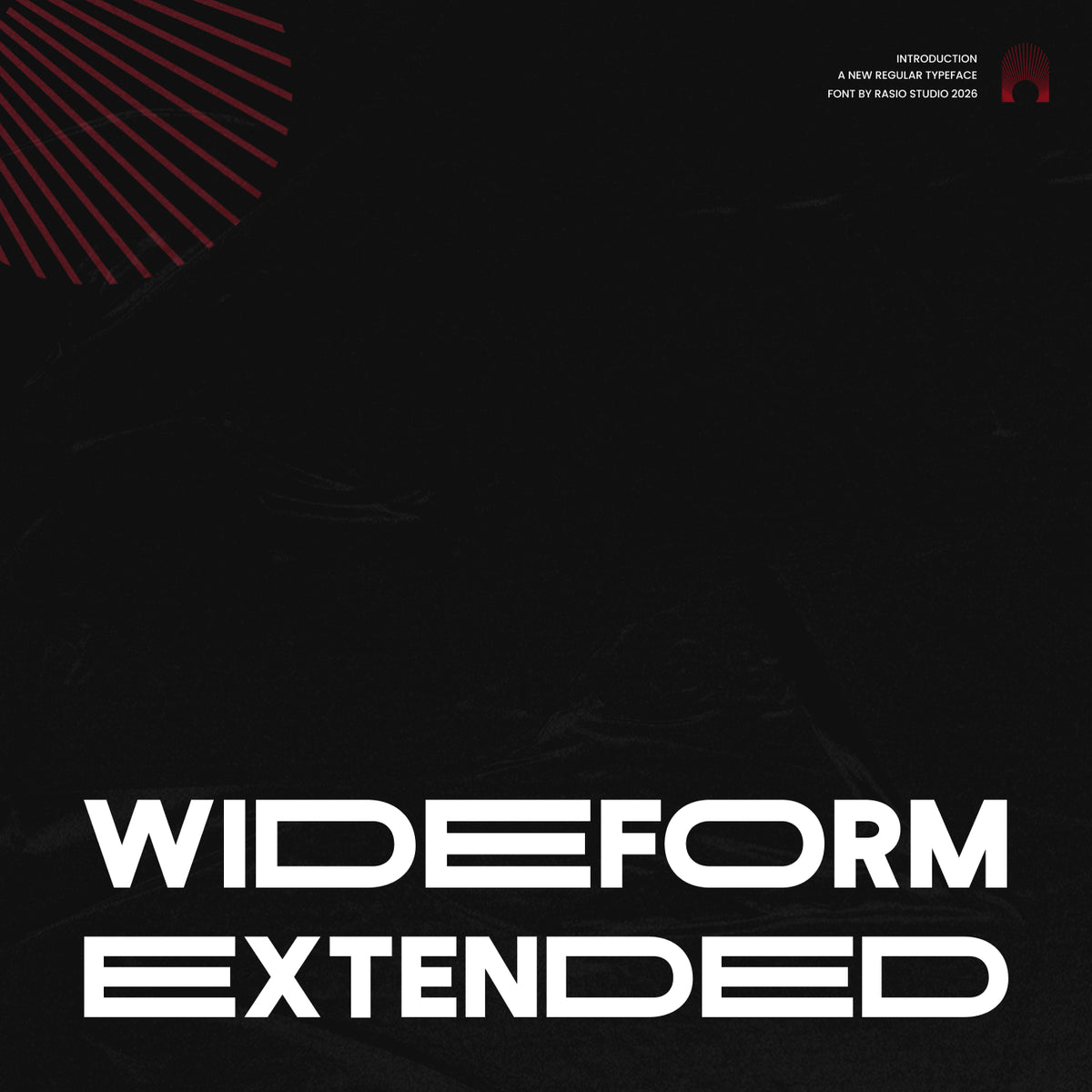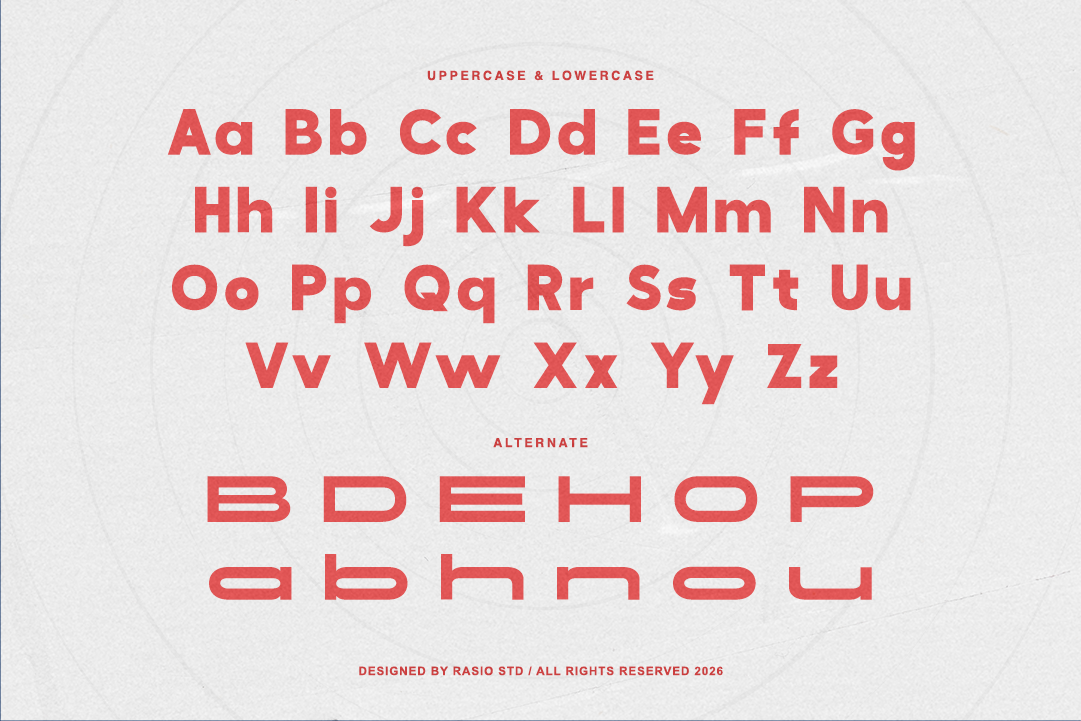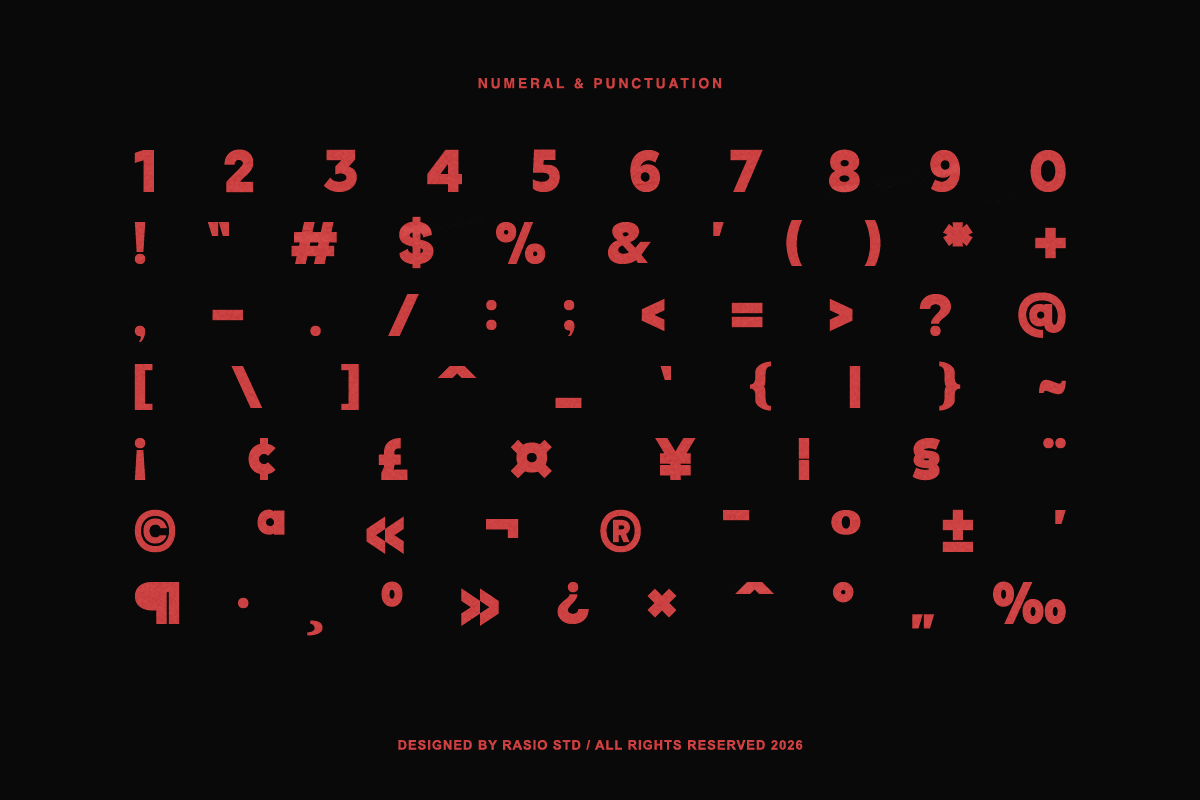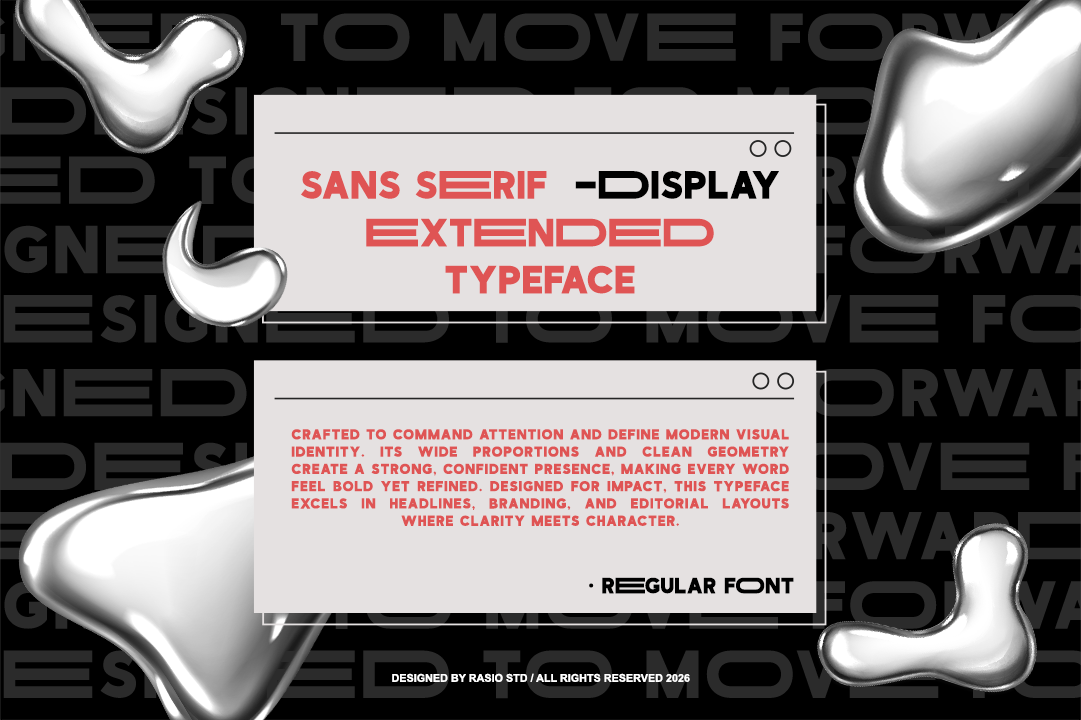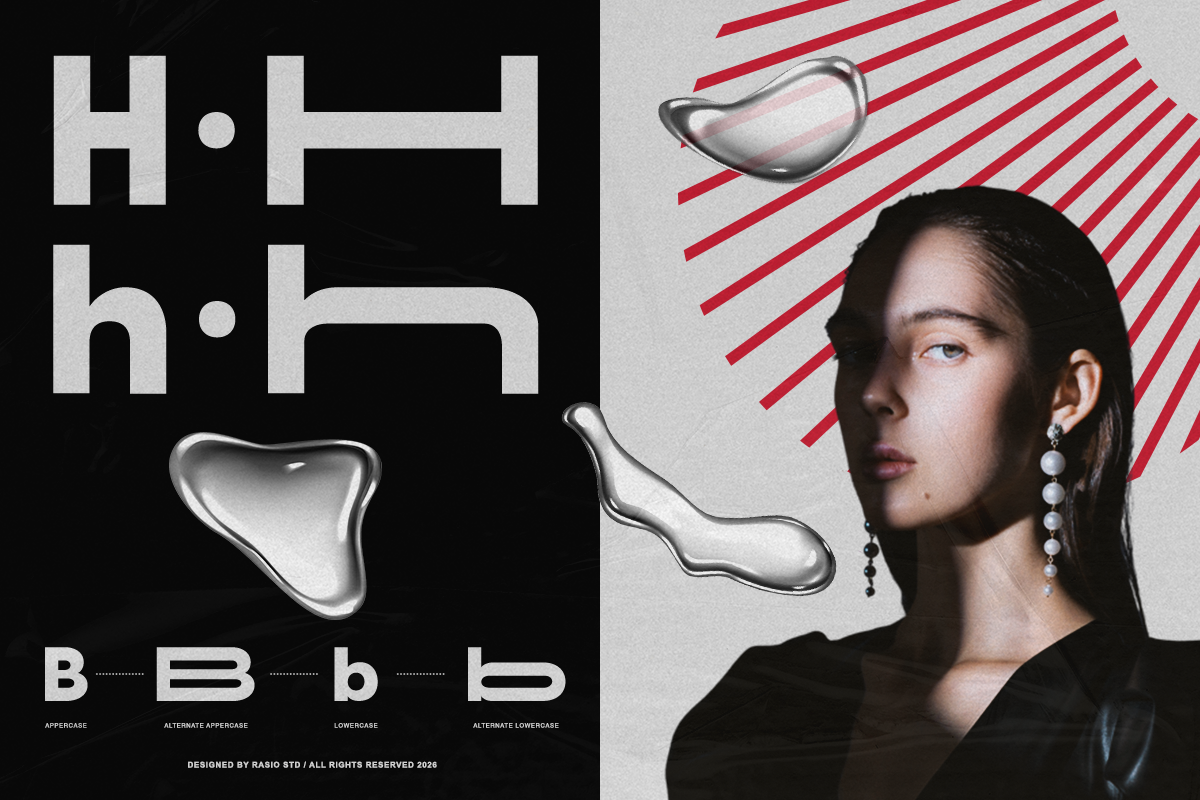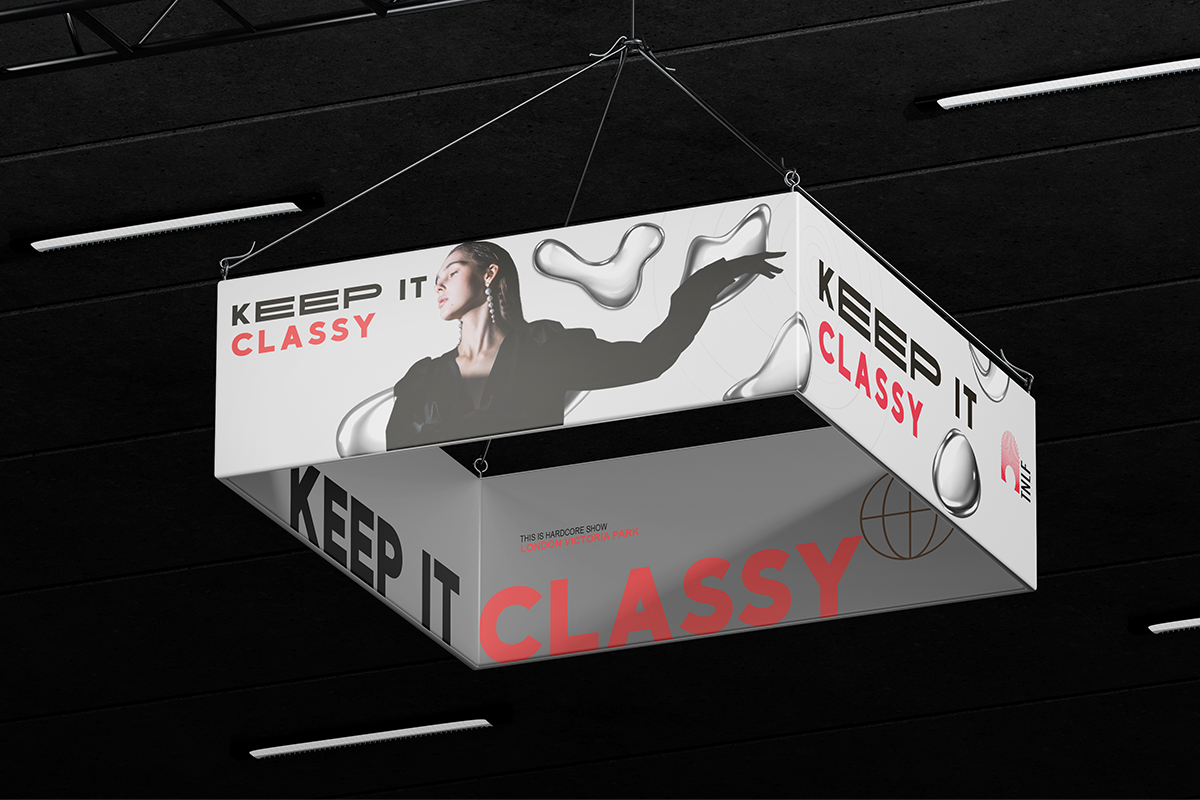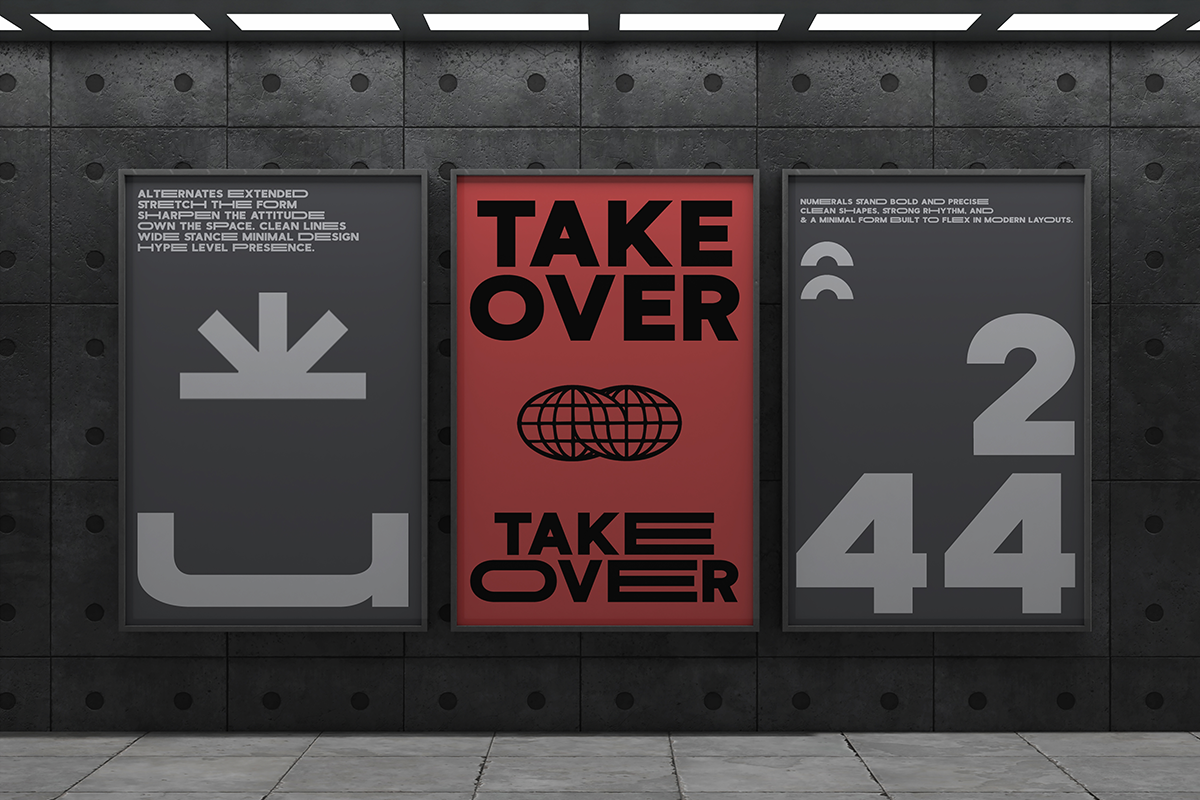
Wideform Extended Sans Serif Font
Wideform Extended is a bold and futuristic display typeface by Rasio Std, designed with wide proportions and geometric consistency for high-impact visuals. This font features uppercase, lowercase, punctuation, numerals, and stylish alternates that enhance flexibility and uniqueness in layout design. With a sharp, sleek look and extended width, Wideform is ideal for headlines, logos, branding systems, editorial posters, web hero sections, or any modern minimalist layout that demands attention.
Relevance and Use Cases is perfect for designers and brands seeking strong typographic presence across modern and digital platforms. Its wide, bold appearance is ideal for high-tech branding, sports design, esports titles, editorial layouts, fashion campaigns, posters, and minimalist website hero images.
Alternates Supports
Wideform Extended Sans Serif is a bold, geometric display typeface with wide proportions, available in OTF, TTF, and WOFF formats. It includes uppercase and lowercase letters, numerals, punctuation, and stylish alternates.